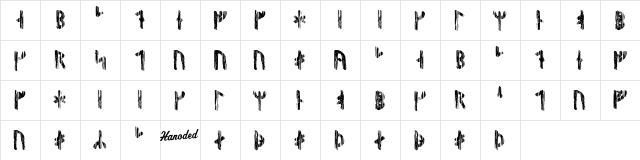
Nidhogg Runic Regular
Design Context for Nidhogg Runic Typeface
Nidhogg Runic is a composed and adaptable typeface that performs quietly and consistently across a wide range of design contexts.